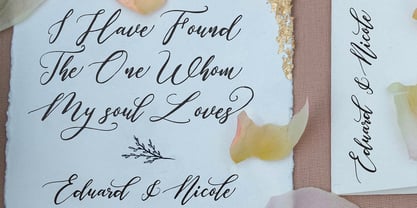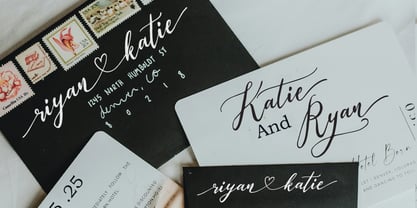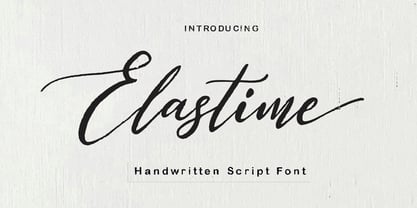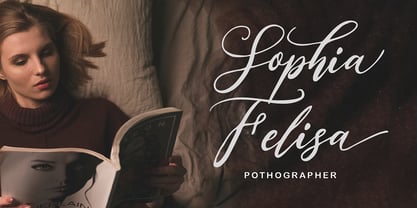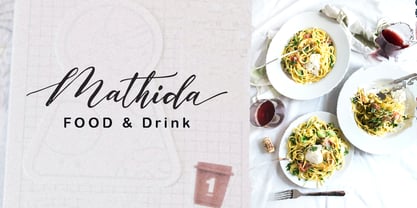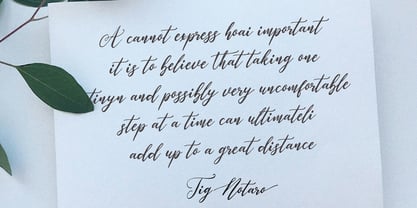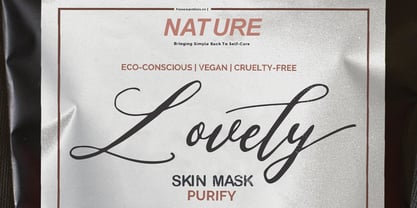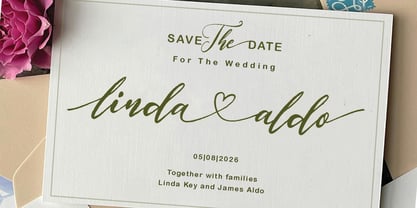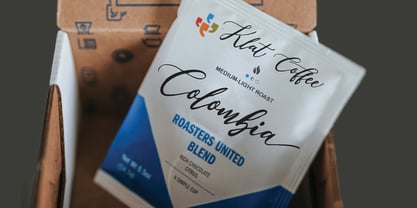
Elastime
The Elastime Font Family was designed by Nasrullah and published by Sulthan Studio. Elastime contains 1 styles. More about this family
Introducing the 'Elastime Handwritten' font - the epitome of original allure. Characterized by its distinctive creative spark, this font infuses your concepts with a tapestry of brilliantly unique alternatives. A strikingly artistic solution, the handwritten style of this font harmoniously blends authenticity with sophistication. The 'Elastime Handwritten' font is a quintessential instrument that encapsulates your imaginative flair. From branding to logos, magazine layouts to invitations, this font carries a versatile appeal that enhances endless creative possibilities.